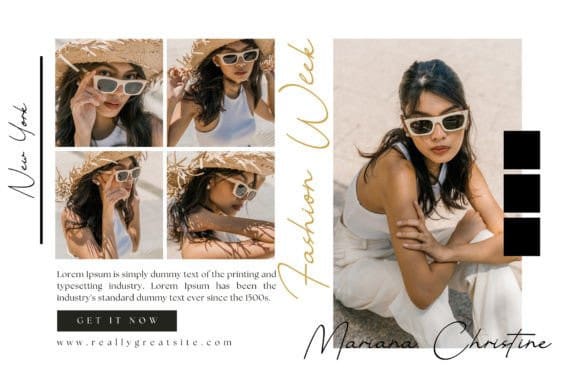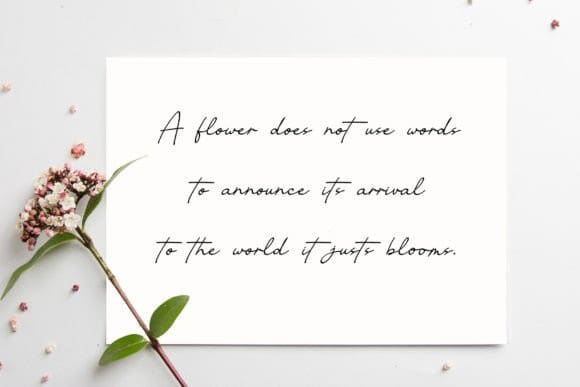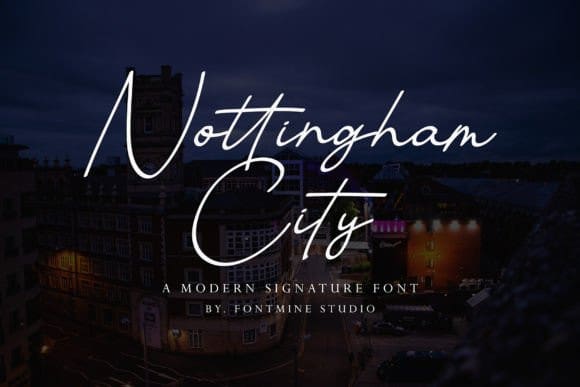
Nottingham City Font
Nottingham City Font is a modern signature script font that captures elegance and sophistication. With its sleek and flowing letterforms, it adds a touch of luxury to any design project. Ideal for branding, logos, and invitations, Nottingham City exudes confidence and professionalism. Leave a lasting impression with this refined and stylish font that embodies timeless beauty.